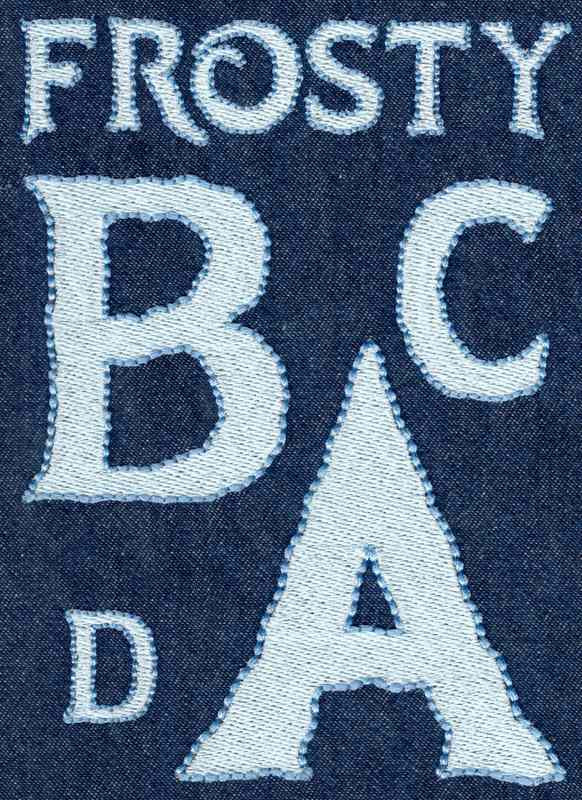
565 Frosty Fill & Floss Font
Frosty Fill & Floss Font comes in 1", 2", 3" and 4" heights based on the capital "A". All sizes included in purchase price. Includes uppercase letters and numbers only (no lowercase or punctuation marks). All characters finished in fill stitch with Floss Stitch outlines as two color set up. Floss Stitch stitches out on all embroidery machines using standard embroidery thread. This font was hand drawn by Troy of Jolson's Designs and inspired by a popular animated movie. Edges are bumpy/wobbly intentionally to give the font a cracked ice look.